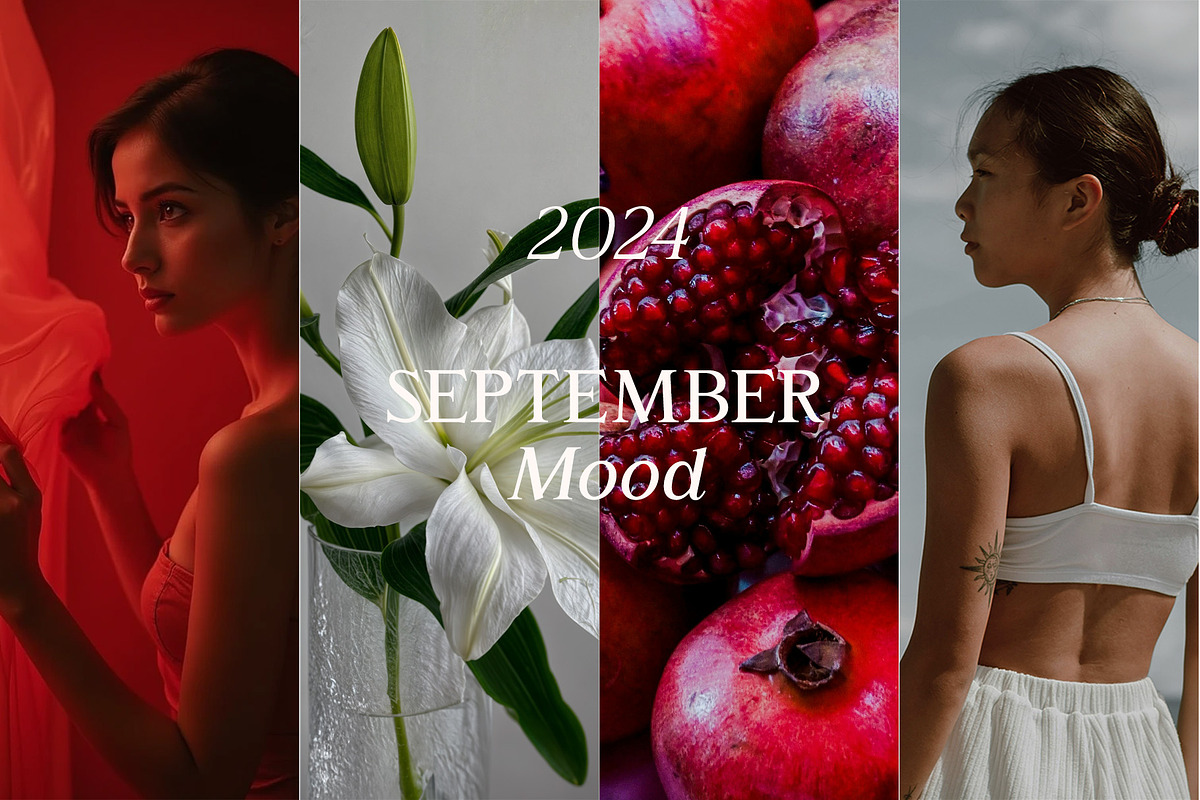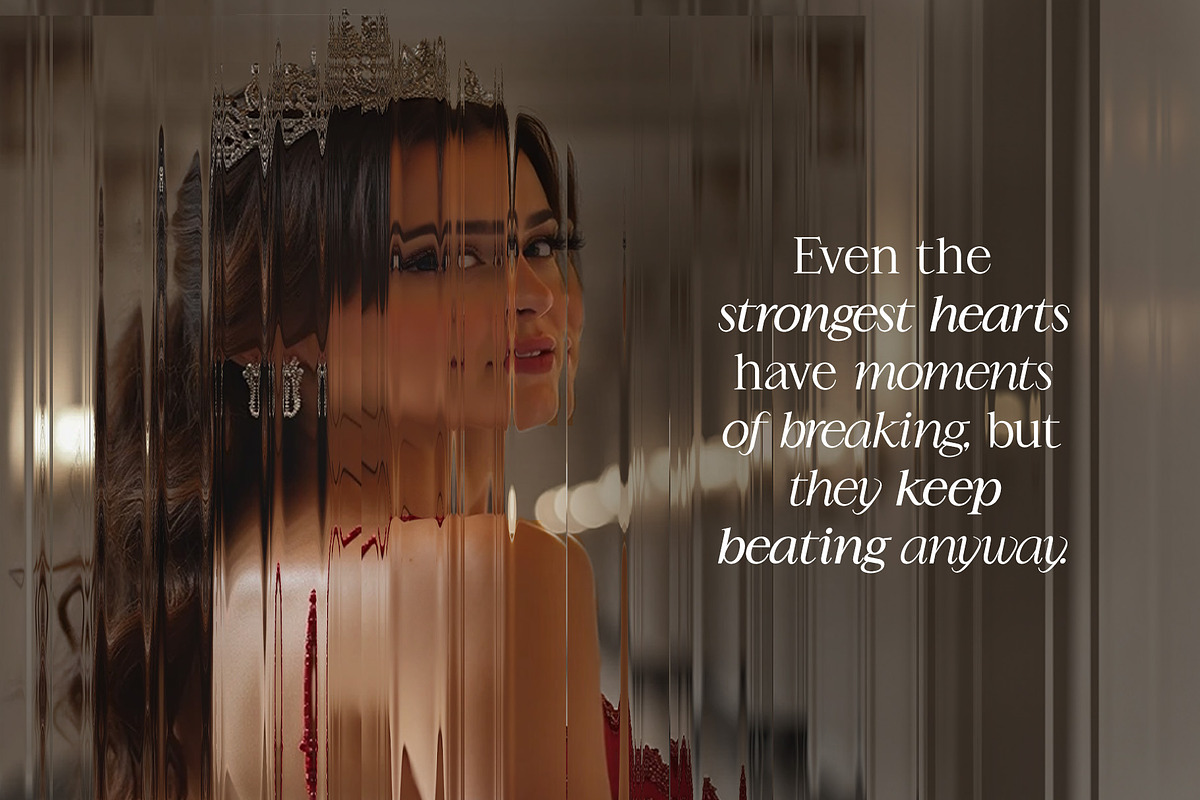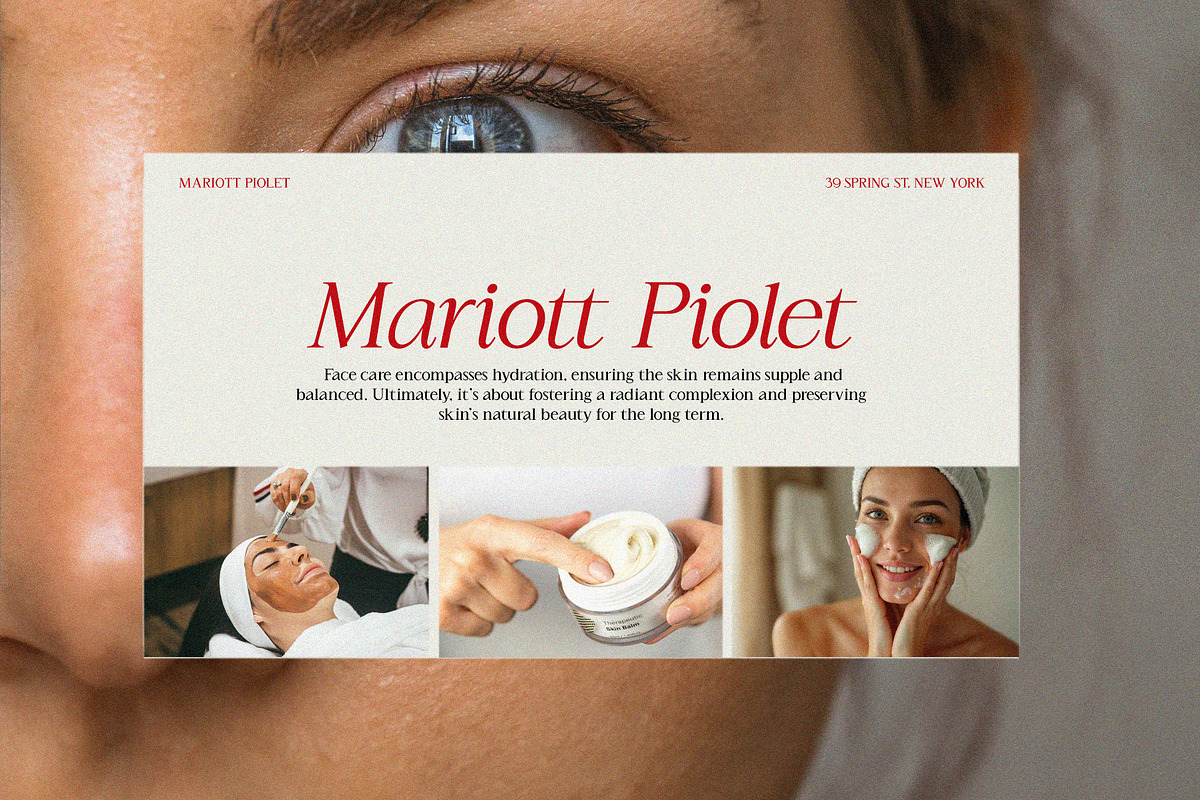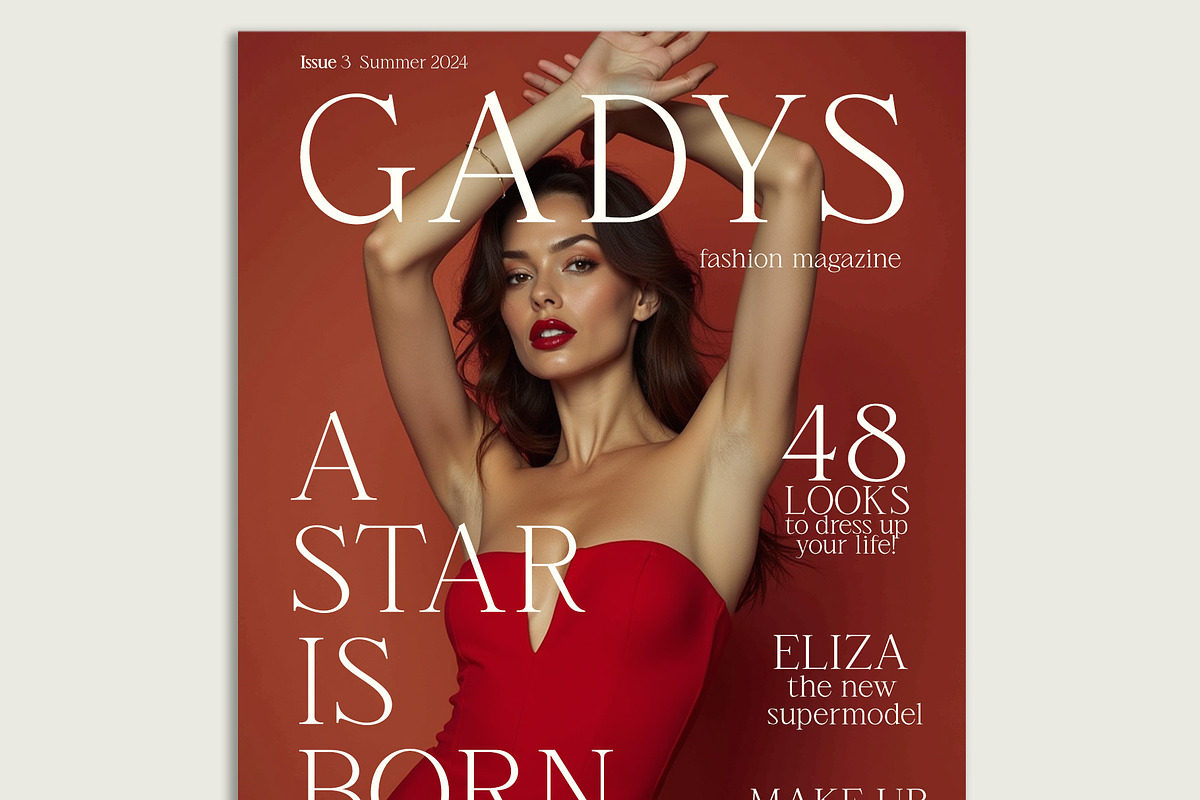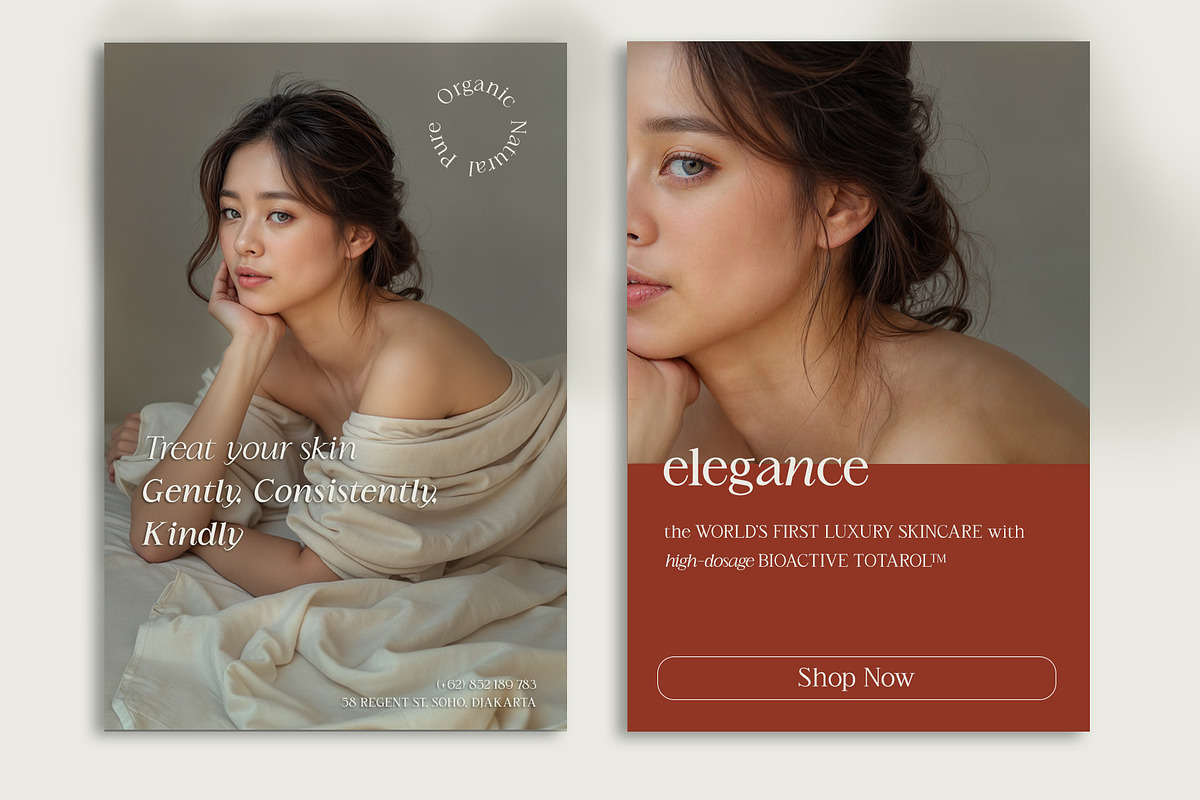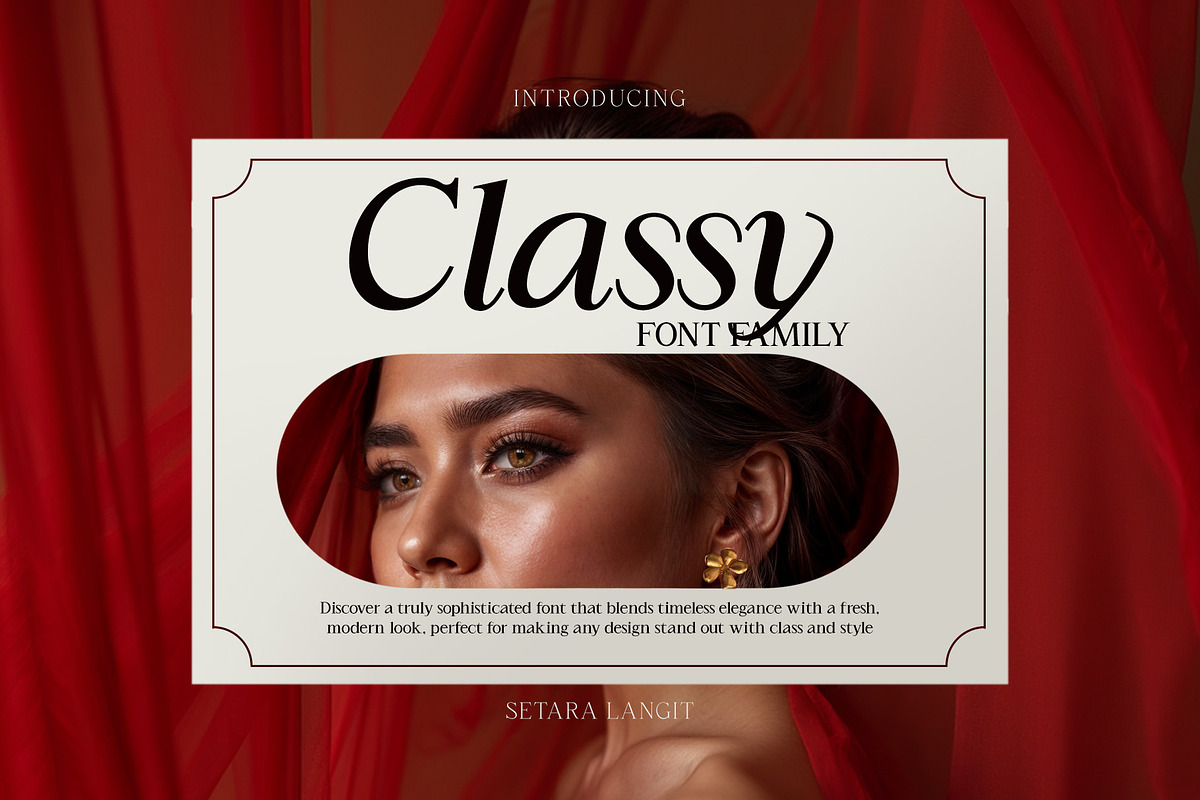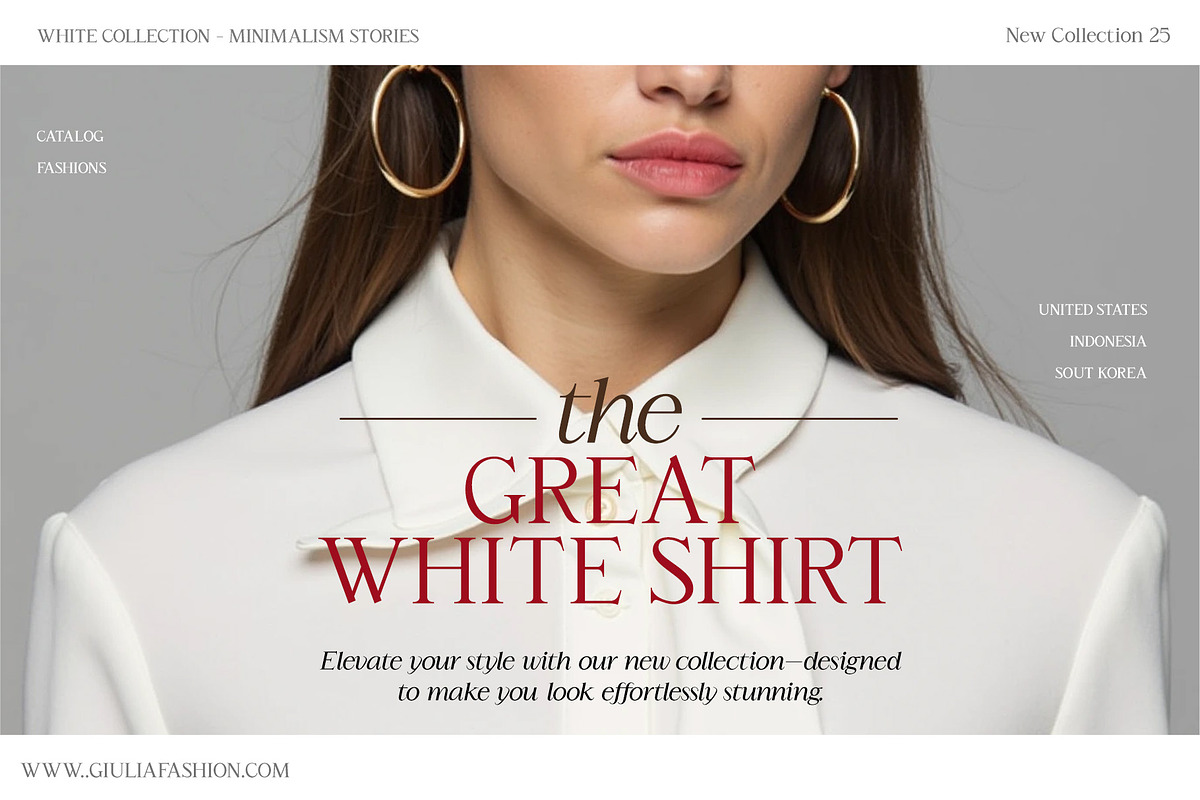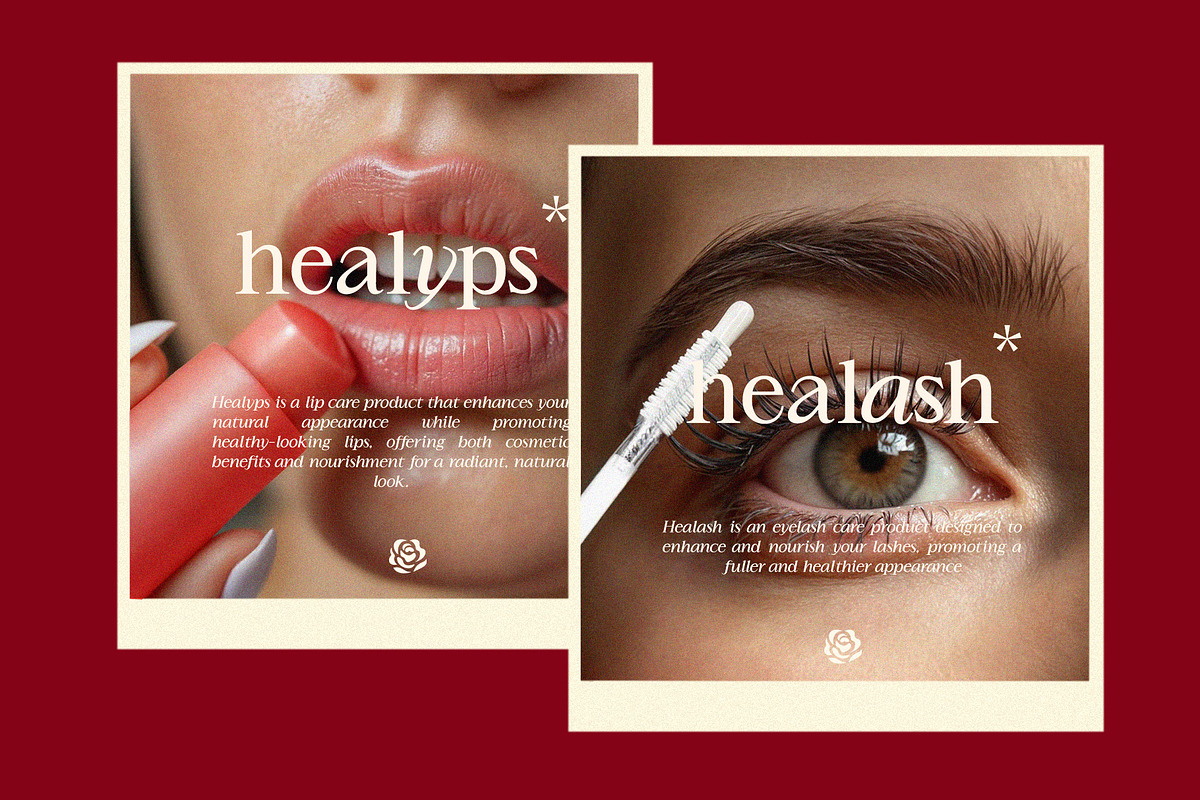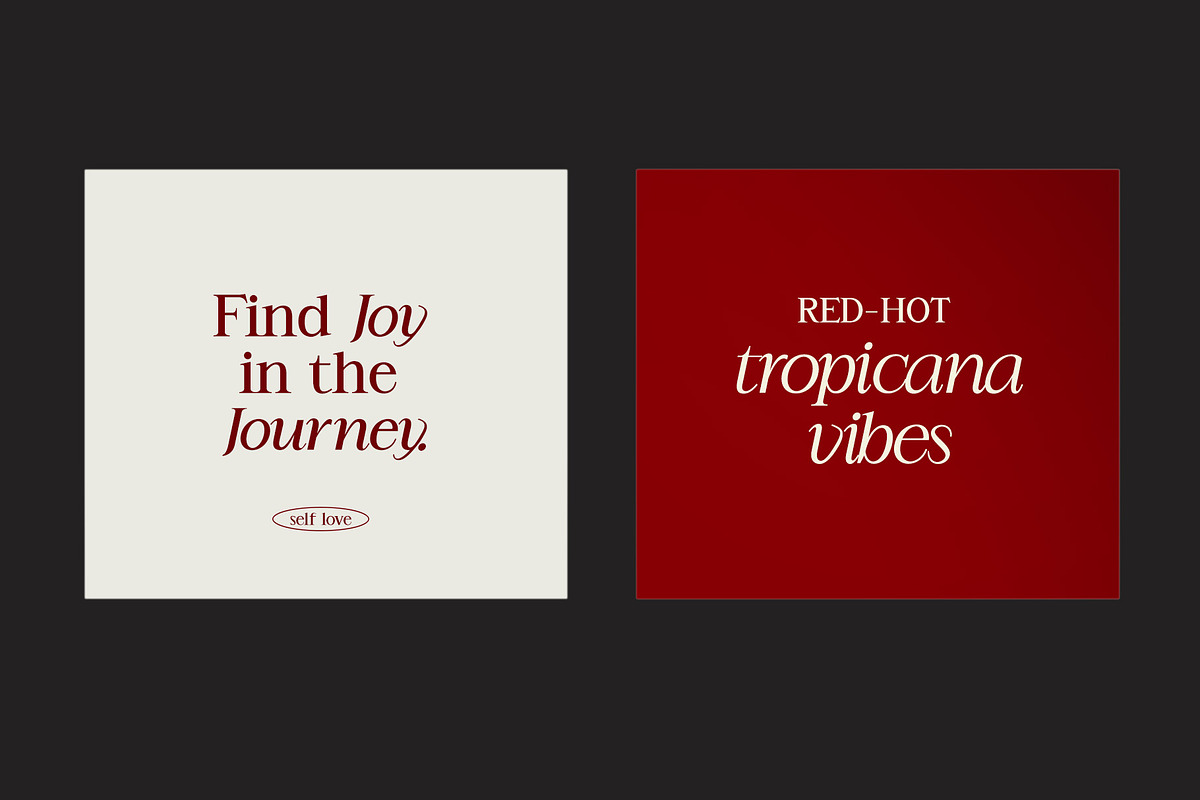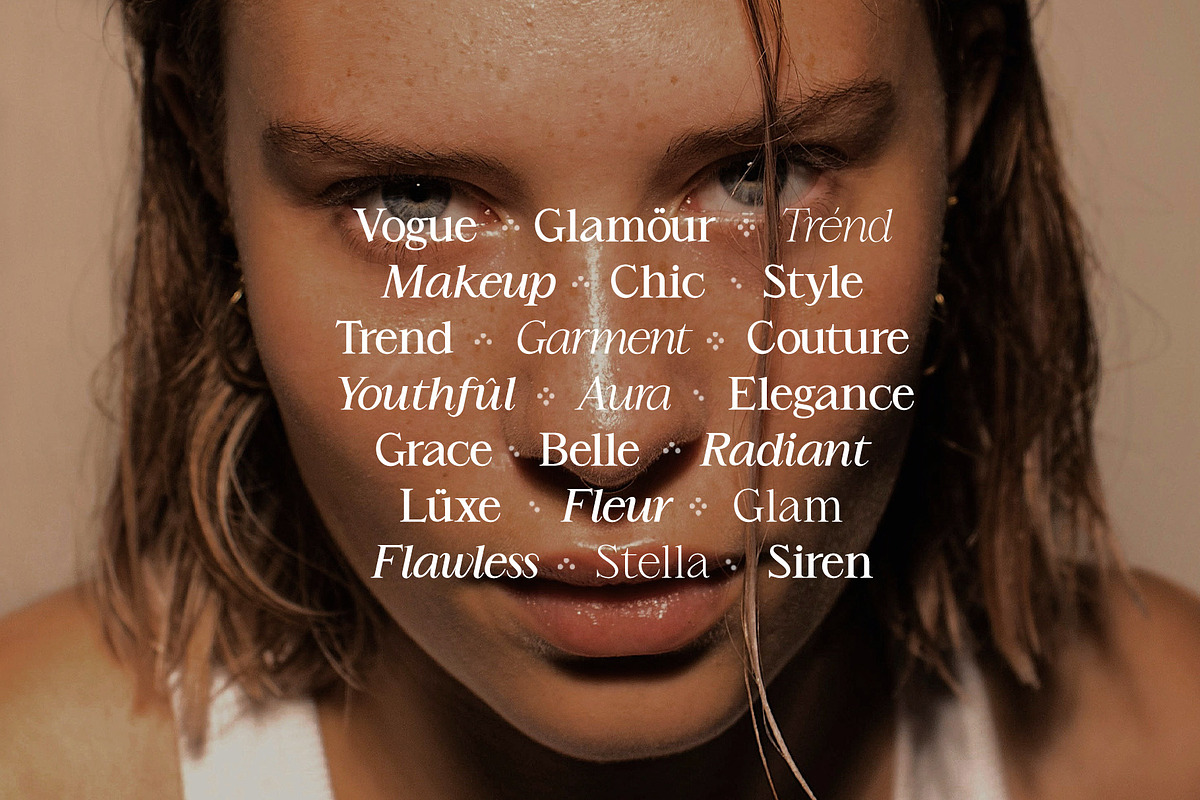
Classy Typeface - Timeless Elegance
This is our newly arrived font called Classy, which is a very beautiful serif typeface aimed at the demanding designers only. The flowing shapes and thin proportions of this font make it a darling of many people. It is quite clear that a lot of attention has been devoted to each letter in Classy in a manner that ensures an illusion of lightness, strength, and elegance making the font uniquely suitable for any brand that wants to communicate luxury and elegance. It is hard to deny that the finessed round soft features in combination with weight ratio of the font will create the impression of sophistication and chic and will help to make the evening with your designs unforgettable. Classy is quite convenient and blends easily into the beauty design of industrial products: perfume, carriage, furniture, appliances. It is equally effective on cosmetic products and advertisements, fashion, and even jewelry and perfume promotion. The typeface incorporates a subtle yet evident sophistication, which has a strong appeal to those who love beautiful things.
When it comes to words, classiness will certainly elevate the visual presentation of what you are trying to sell. There is something contemporary yet embedded in tradition so you can be sure that your brand will be enhanced literally forever. For all such decorative accents and dramatic style please go ahead and get the Classy font family for your design work.